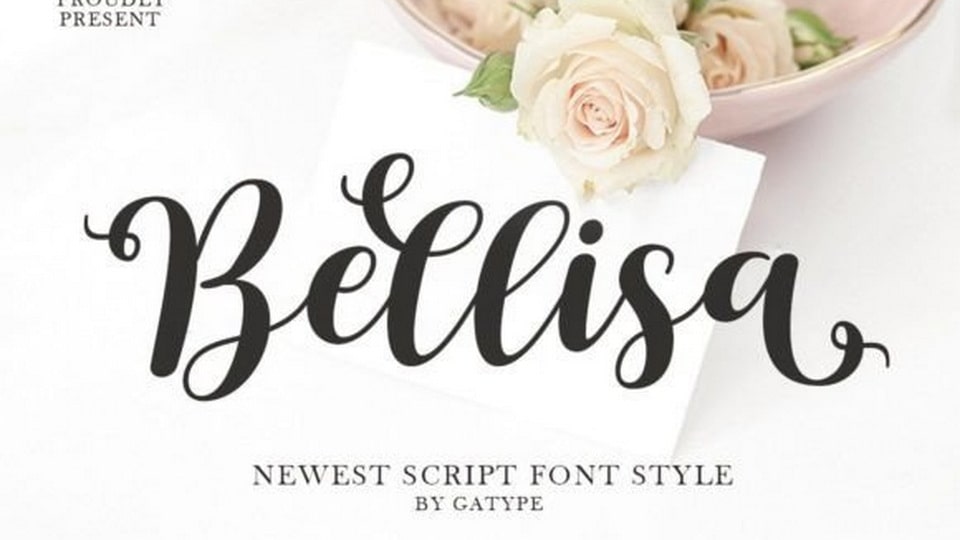
Download Bellisa font, a lovely cursive script typeface with bold contrasting strokes, a playful character with a bit of binder and alternatives. Bellisa font is great for logo designs, social media, movie titles, book titles and more.